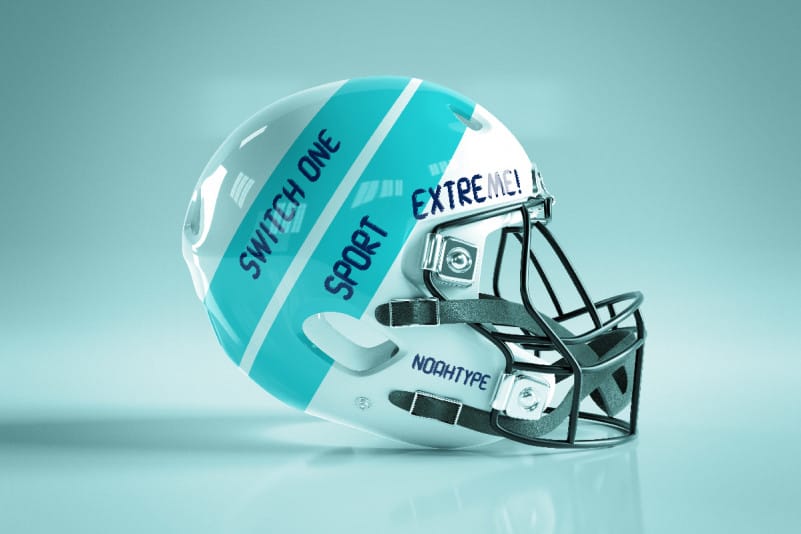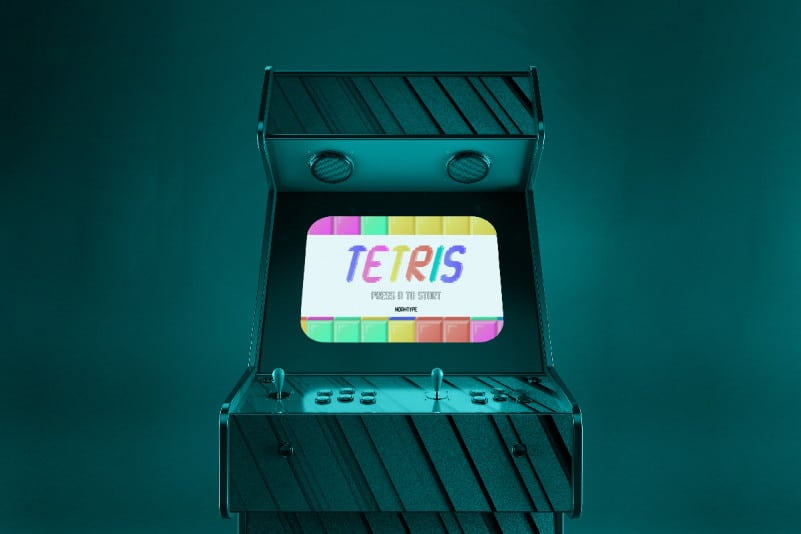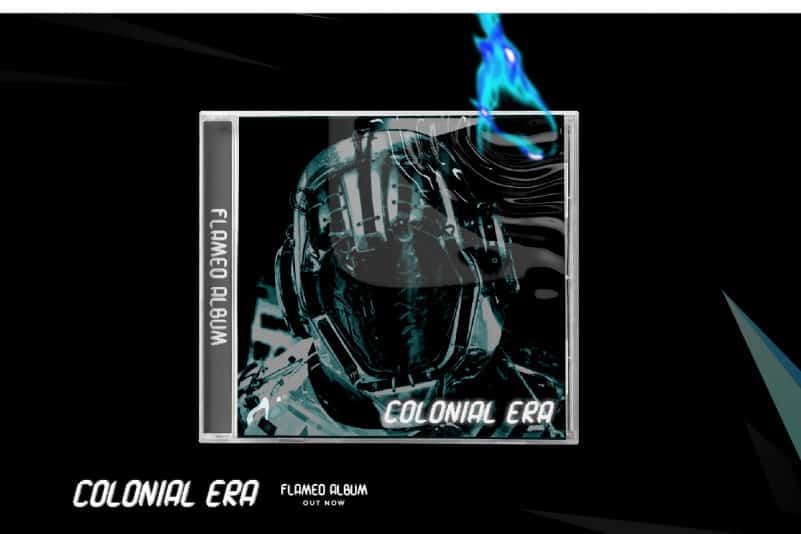
Switch One Display Font
Switch One Display Font is a high tech gaming inspired display font which is combining modern and strong typography look. This font is crafted carefully in every its single letter so we can make sure it has Fancy Techno theme but can also work on mysterious horror related projects. On this font, you will find great and exclusively made characters that you will never find anywhere else.
Switch One Display Font includes full set of Uppercase and Lowercase Basic Characters, Numerals and Punctuation. Also it contains ligatures to make it flowless and perfectly make awesome look that add more aesthetic fonts to perfect your extraordinary project.